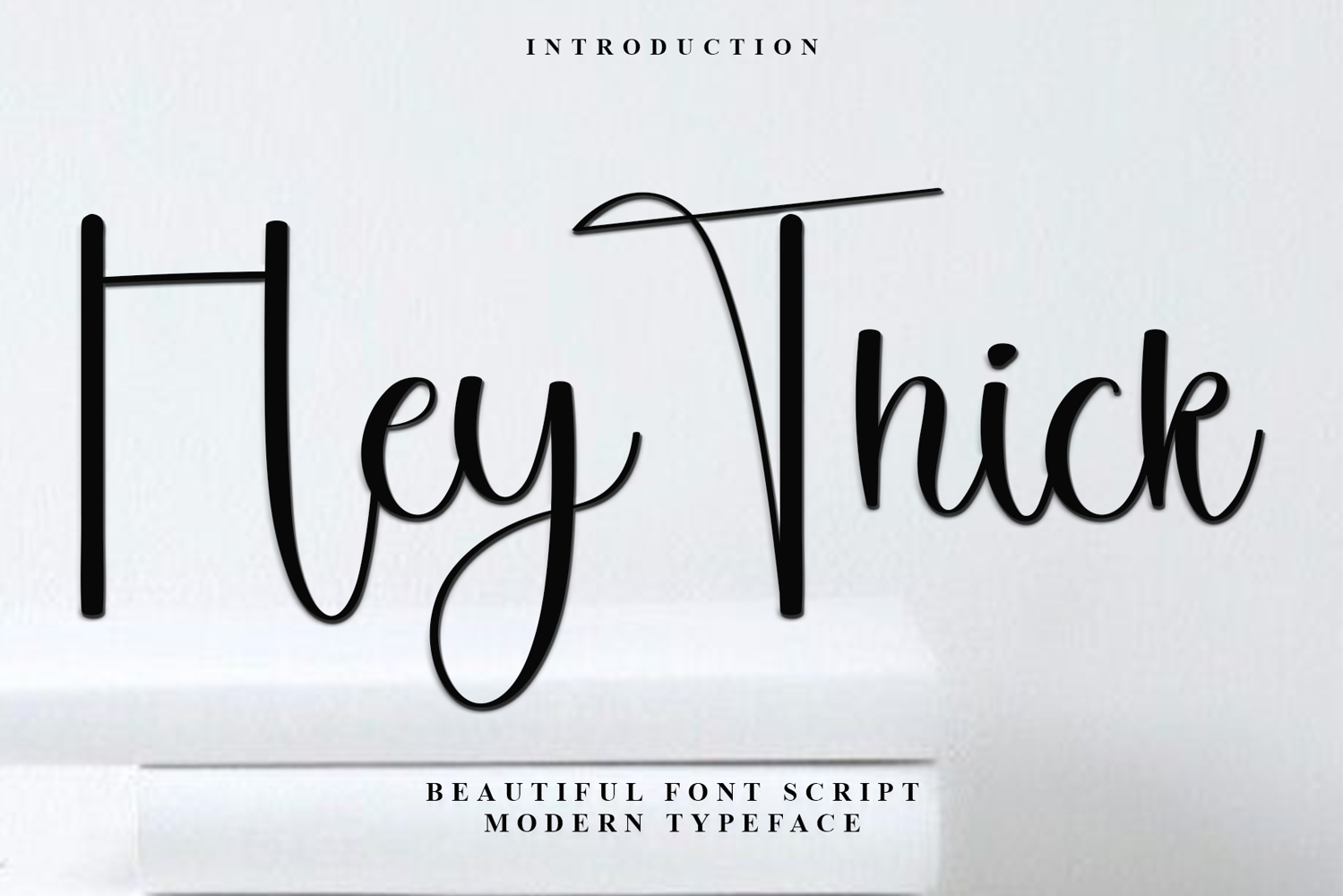
Hey Thick
Hey Thick is a beautiful and eye-catching font designed with a soft, unique touch. Its distinctive strokes give it a special character, making it meaningful and versatile for future use. With various characters, it’s perfect for design projects, crafts, and other creative works.